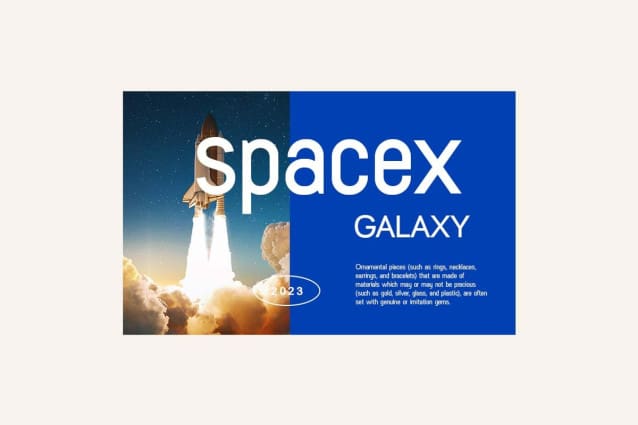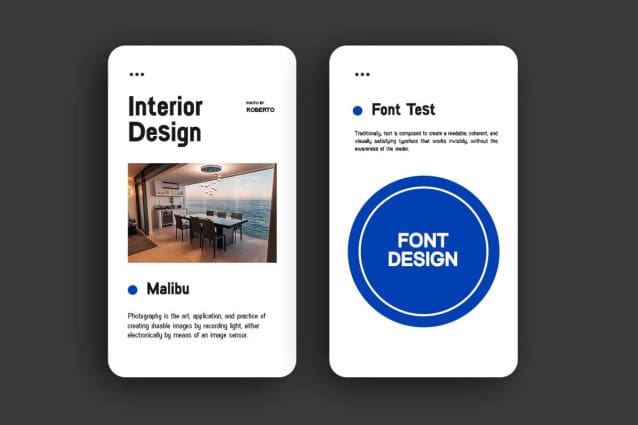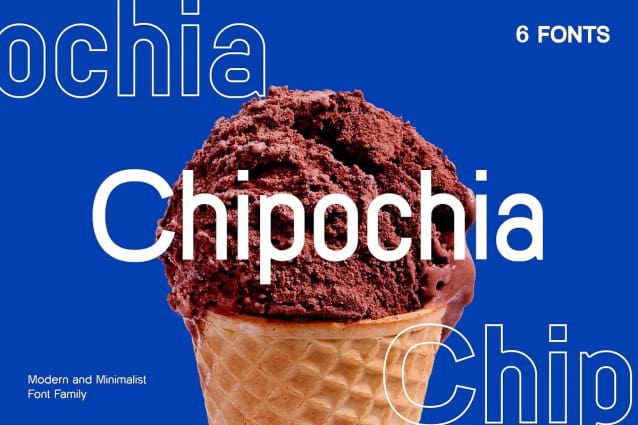
Chipochia Font Family
Chipochia Font Family a bold statement with our latest sans-serif font. With its clean lines and modern appeal, this font is sure to turn heads and leave a lasting impression. Perfect for headlines, logos, and any design that demands attention. It is both functional and stylish, making it a versatile choice for a wide range of design projects.